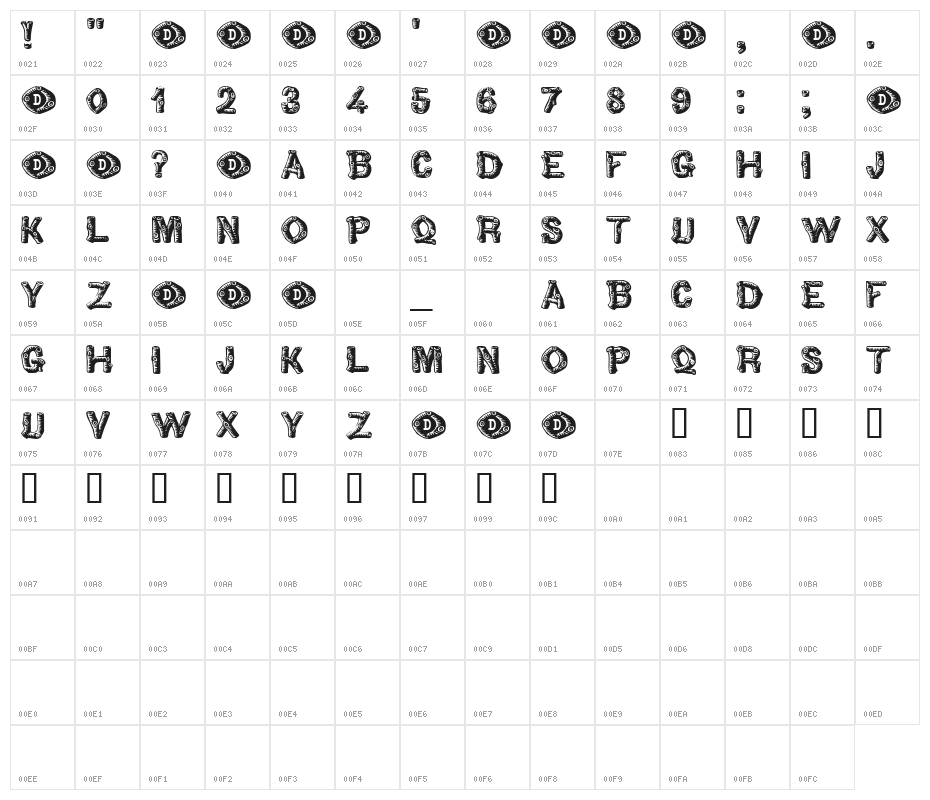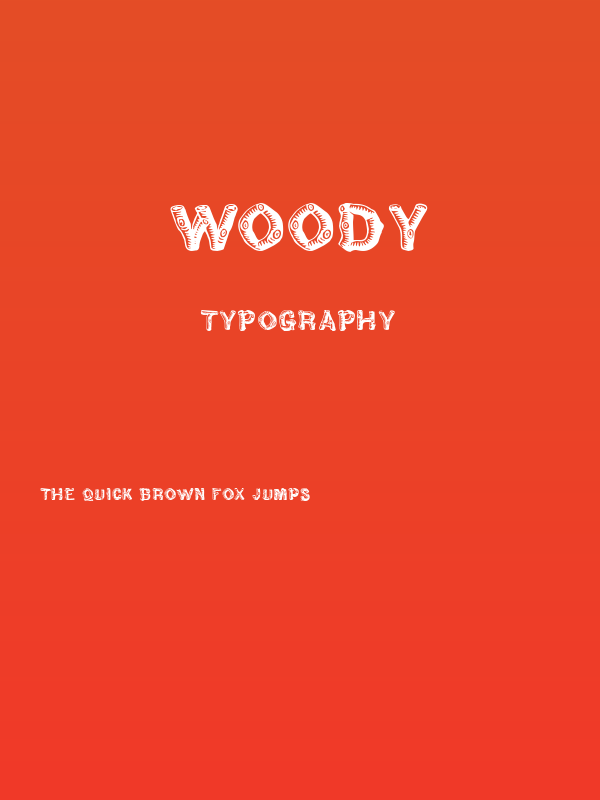
Woody Font
Woody Description
This font features a playful and decorative style, reminiscent of hand-carved wood with intricate patterns and textures. Each character is adorned with swirling lines and dots, creating a whimsical and organic appearance. The bold, three-dimensional effect adds depth and a tactile quality, making it stand out in any design. The font's unique aesthetic is both eye-catching and charming, suitable for projects that require a touch of creativity and fun. Its detailed design suggests a handcrafted feel, perfect for evoking a sense of nostalgia or rustic charm.
Overall StyleDecorative
Use CaseHeadlines, Logos
Proposed ProjectsIdeal for children's book covers, playful branding, rustic-themed invitations, and creative posters.